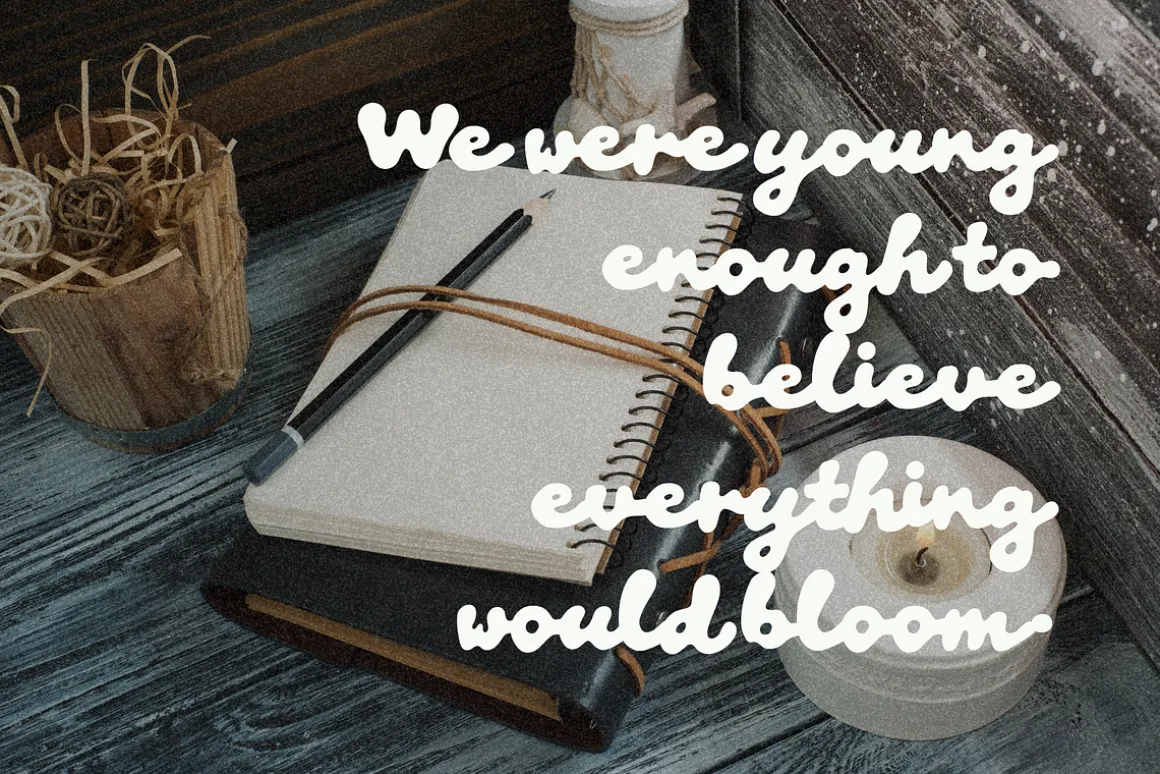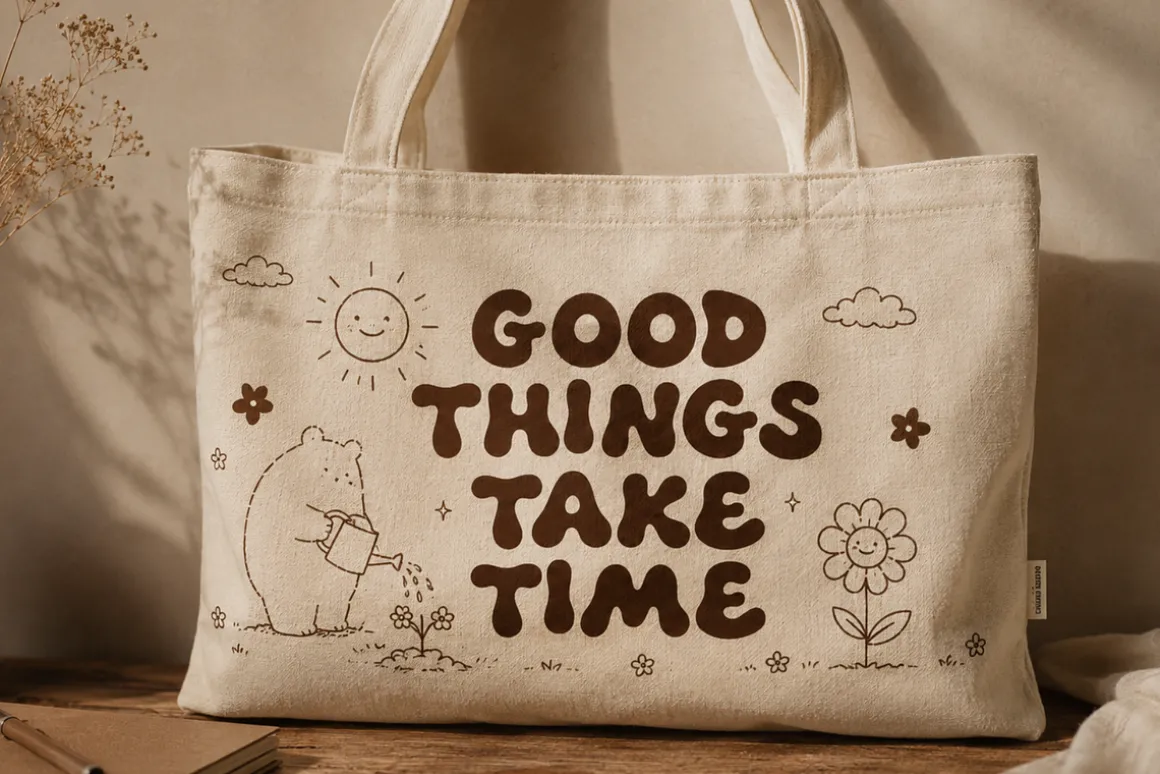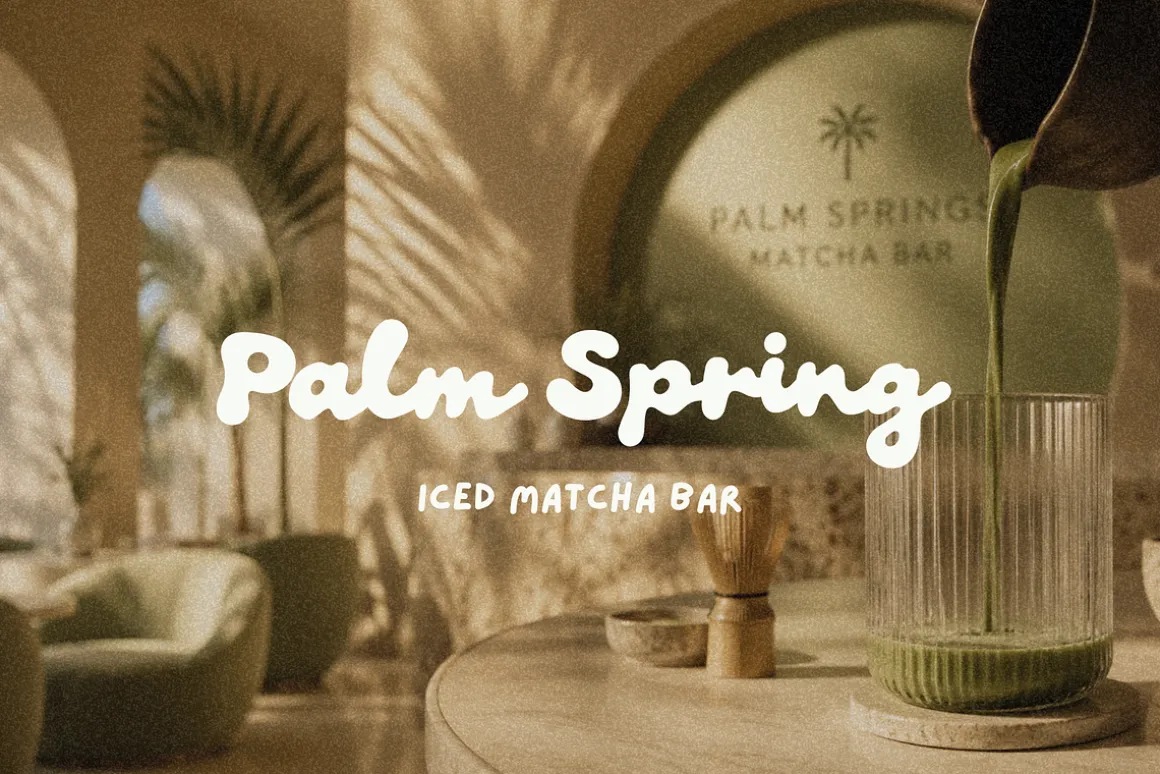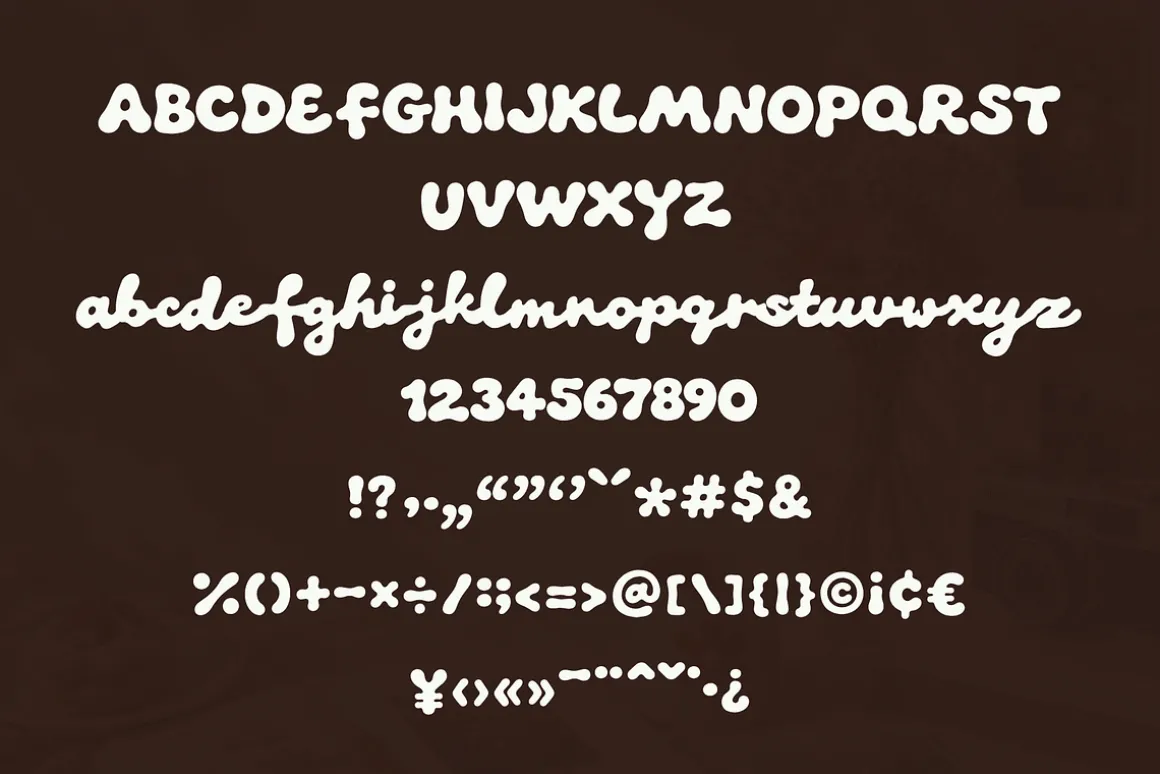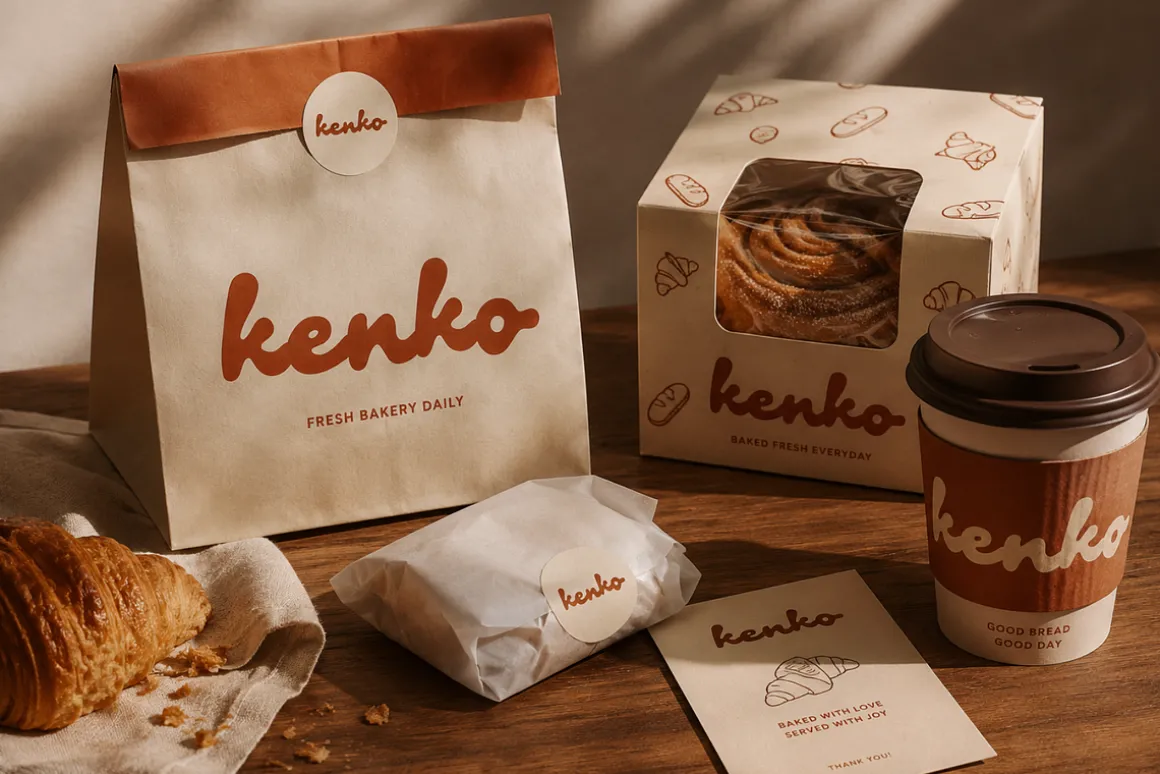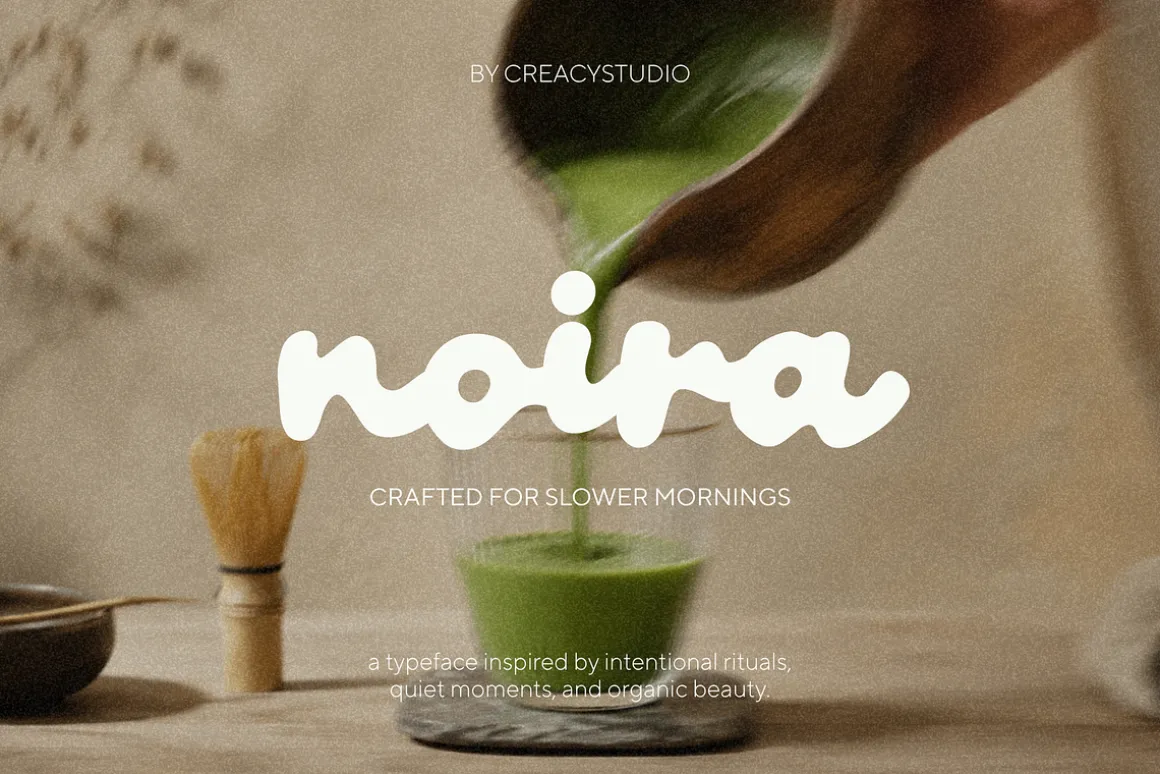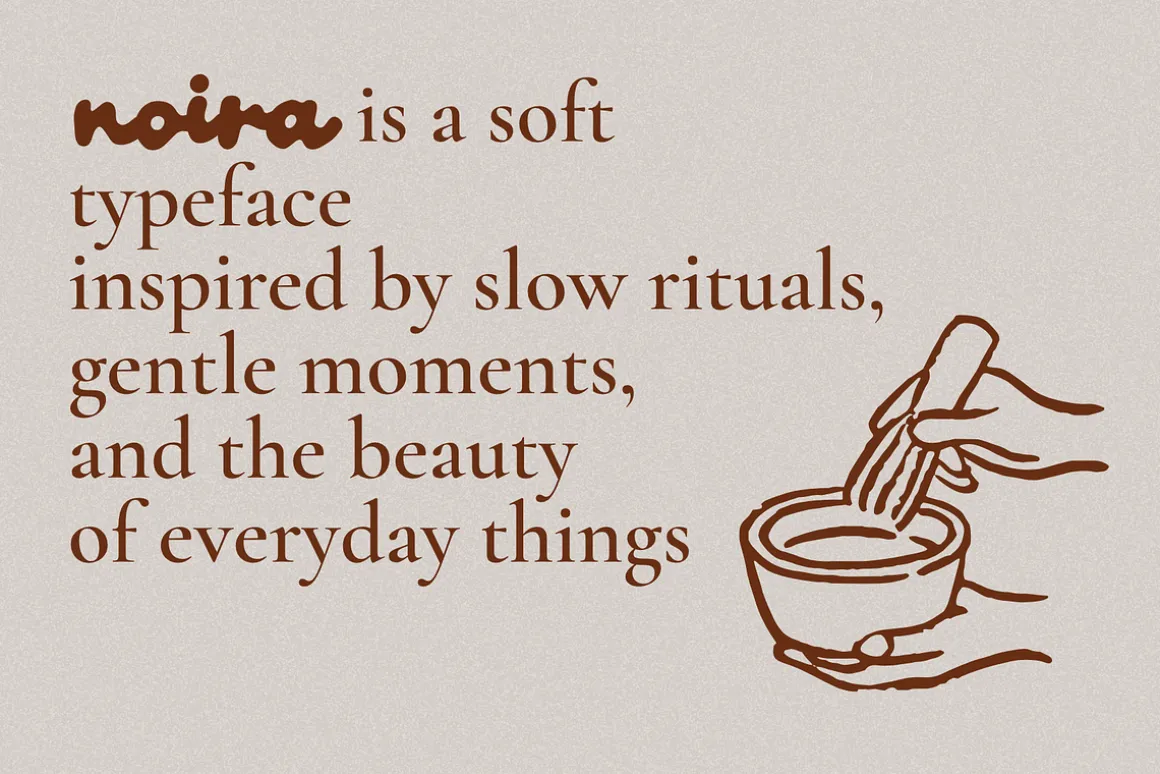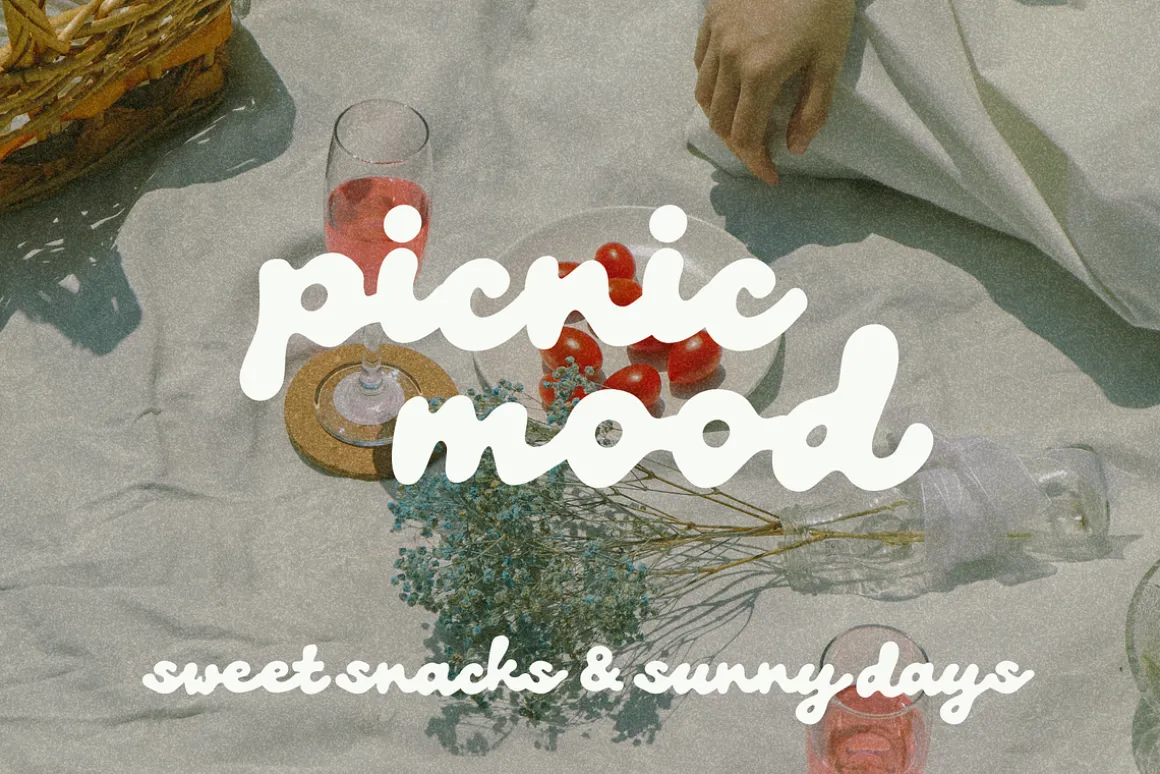
Noira is a playful handmade display font crafted with soft curves, rounded shapes, and an organic rhythm that feels warm, calm, and approachable. Inspired by slow mornings, matcha rituals, cozy bakeries, and intentional living, this typeface brings a gentle personality into every design.
Perfect for branding projects that want to feel friendly, nostalgic, modern, and naturally expressive.
Whether you’re designing café packaging, lifestyle branding, Pinterest graphics, social media content, quote posters, or cute merchandise — Noira adds a charming handcrafted touch that instantly feels personal and memorable.
Perfect For
Café & bakery branding
Matcha bar identity
Packaging design
Pinterest templates
Social media posts
Cute merchandise
Tote bag quotes
Lifestyle branding
Organic product labels
Kids & playful designs
Editorial headlines
Handmade business logos
Sticker & Cricut projects
YouTube thumbnails
Greeting cards
Font Features
Uppercase & Lowercase
Numbers & Punctuation
Smooth Organic Curves
Handcrafted Feel
Easy to Read
Example Taglines
Crafted for slower mornings
Sweet snacks & sunny days
Good things take time
Baked fresh everyday
Inspired by slow rituals & gentle moments